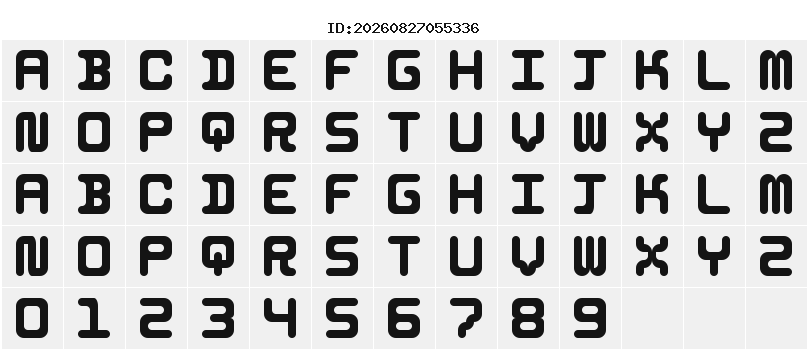
• Font Name: 5Identification Mono
• Designer: Noah - 11 year old typomaniac
• Description: ‚Äú5Identification Mono‚Äù was built with FontStruct
5Identification Mono.ttf is a modern, elegant sans-serif font designed for ultimate readability and visual harmony. Perfect for branding, headlines, web design, and print materials.